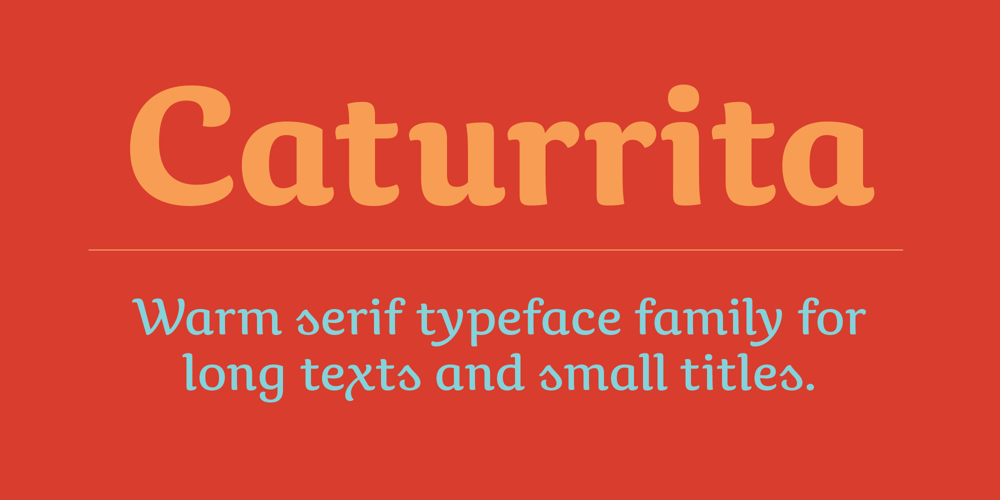
Caturrita
Caturrita font
Caturrita Font Family was designed by Bruno Mello and published by Armasen. Caturrita contains 5 styles and family package options. Caturrita is a versatile family for use in both long texts, and can be used in titles. The characters have fluidity, contemplating the principle of continuity. It has structural strength of the glyphs to be drawn by considering aspects calligraphy. The name comes from the similarity between the characteristics of the bird well known in southern Brazil: drawing the loose, fluid that resembles a flying bird. Moreover, a clear reminder that some of the glyphs are the serifs beak of the animal. Prize Winner Bornancini – Porto Alegre RS – Academic Category Selected Project Muestra de Estudiantes for the Ibero-American Biennial of Design – Madrid – Spain